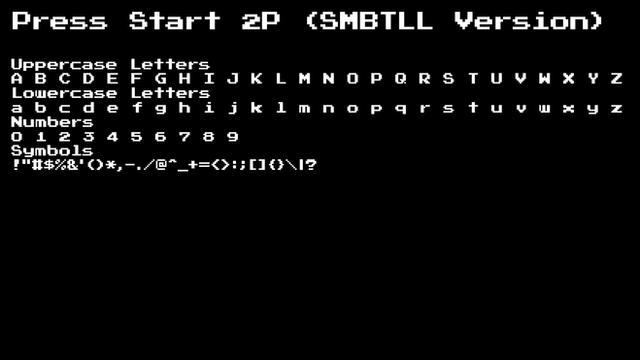
It may not be 100% accurate as i know its
Every character in a word is one single pixel.
and Every Space is 5 pixels
and 10 pixel gaps between the lines (paragraphs)